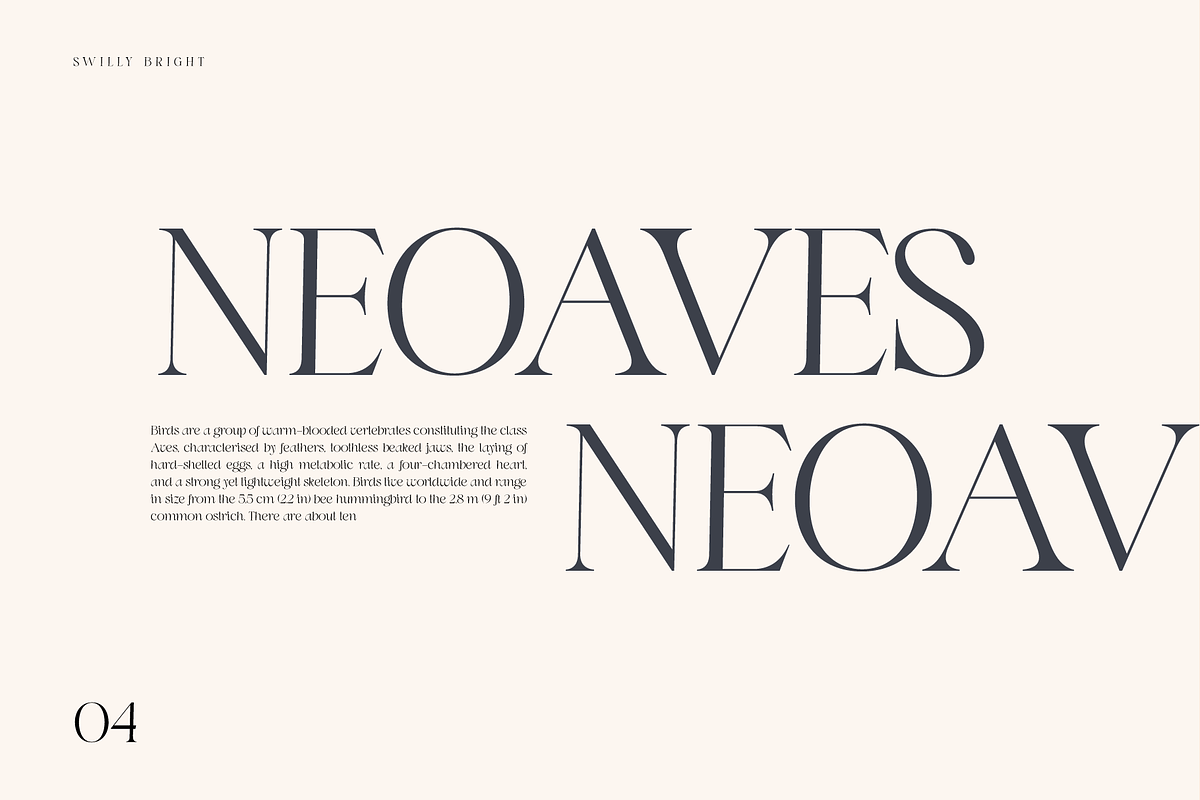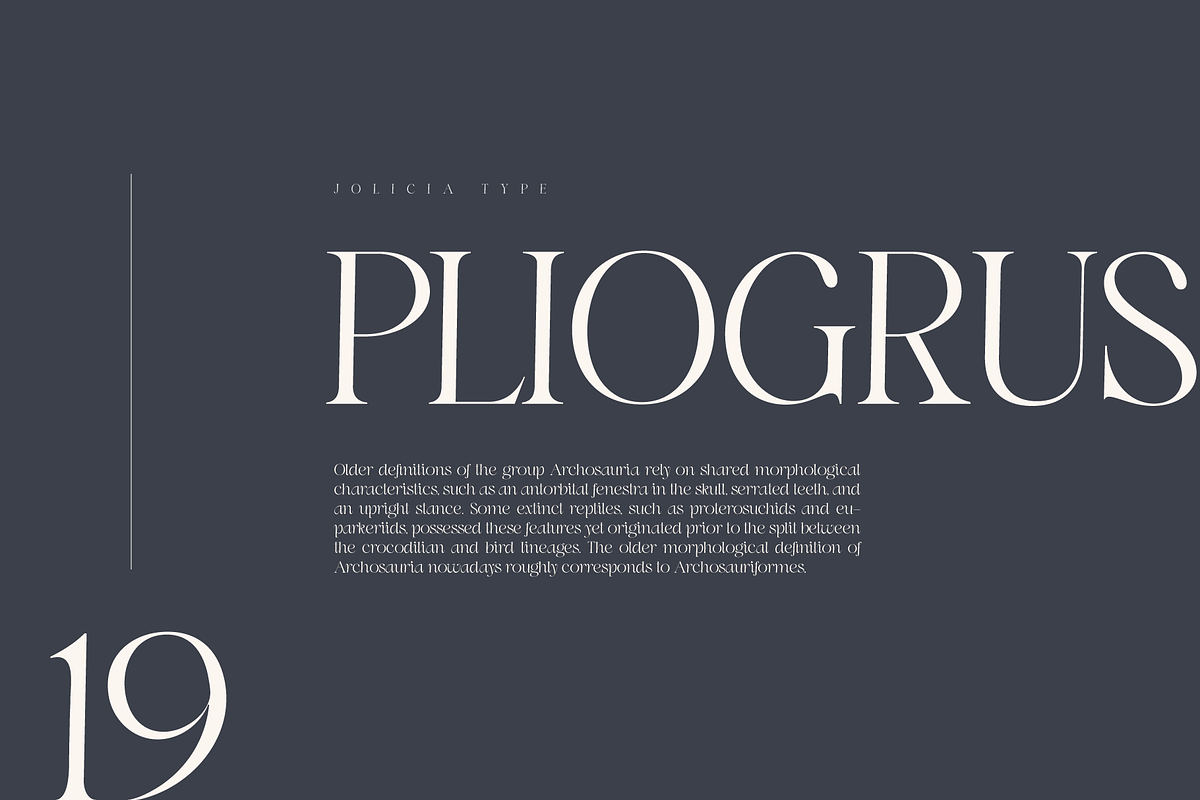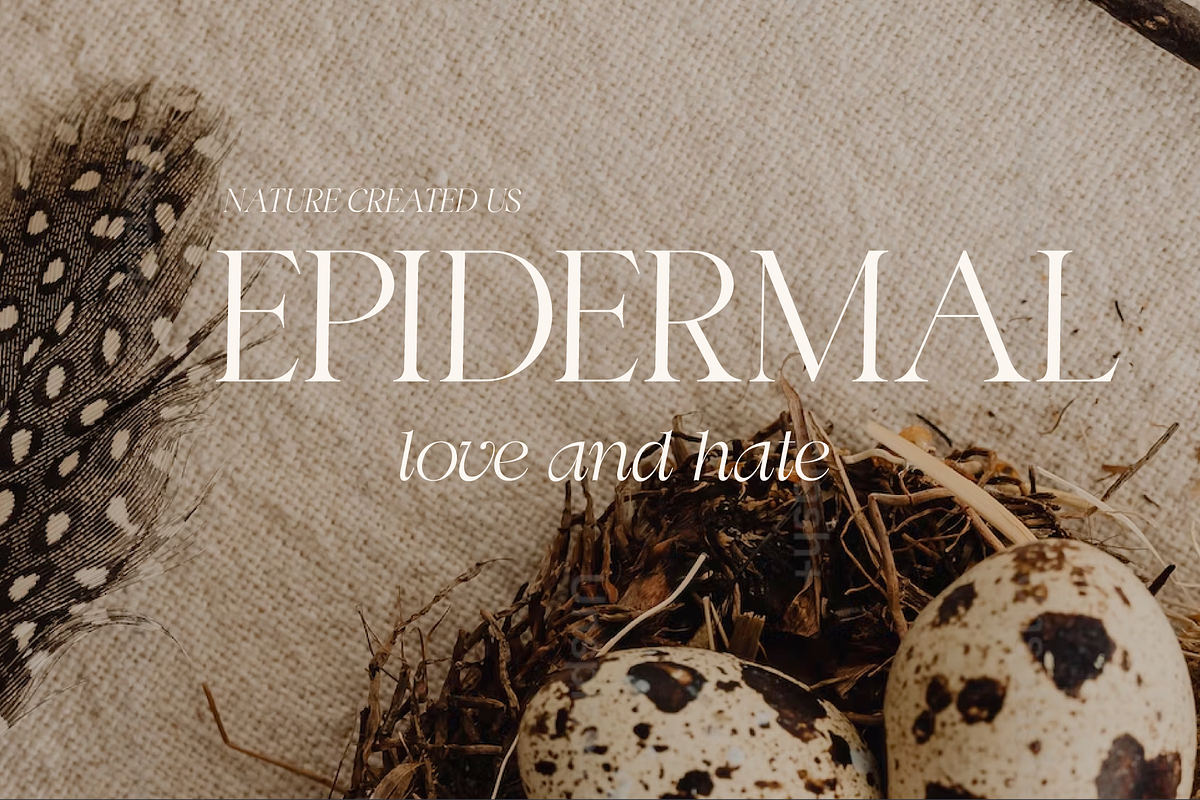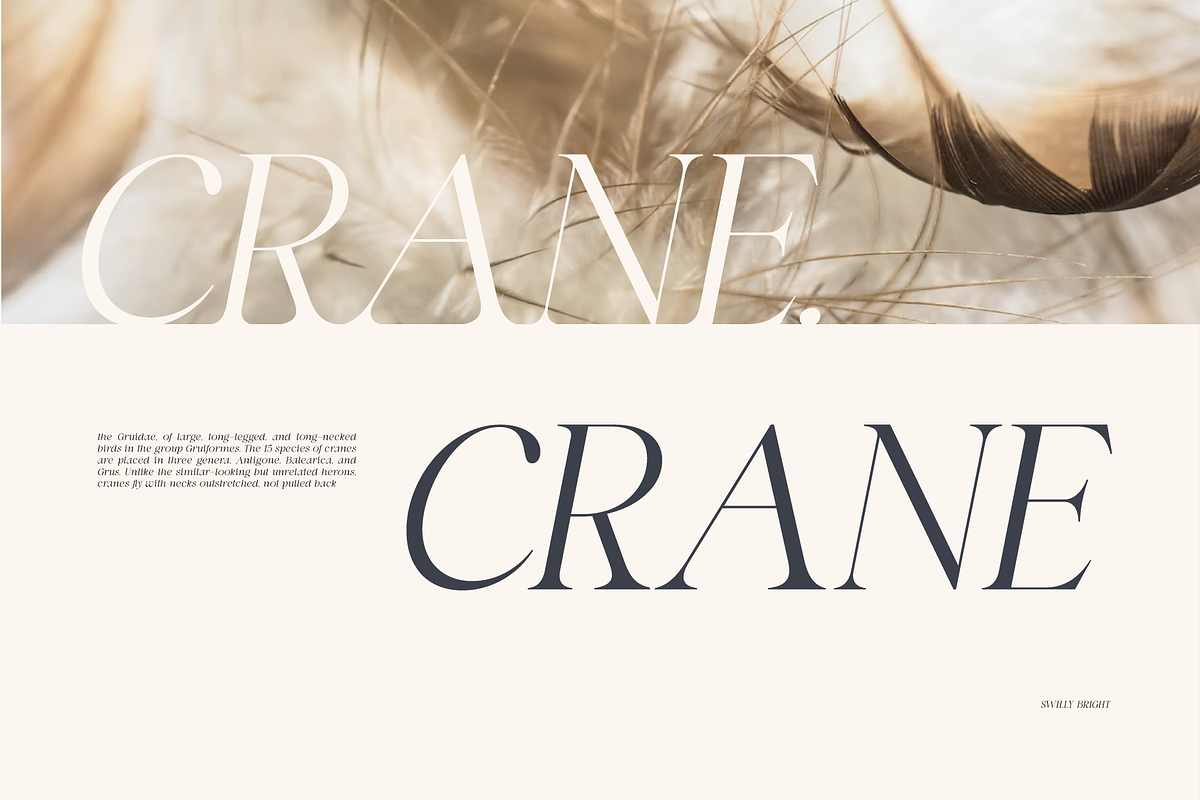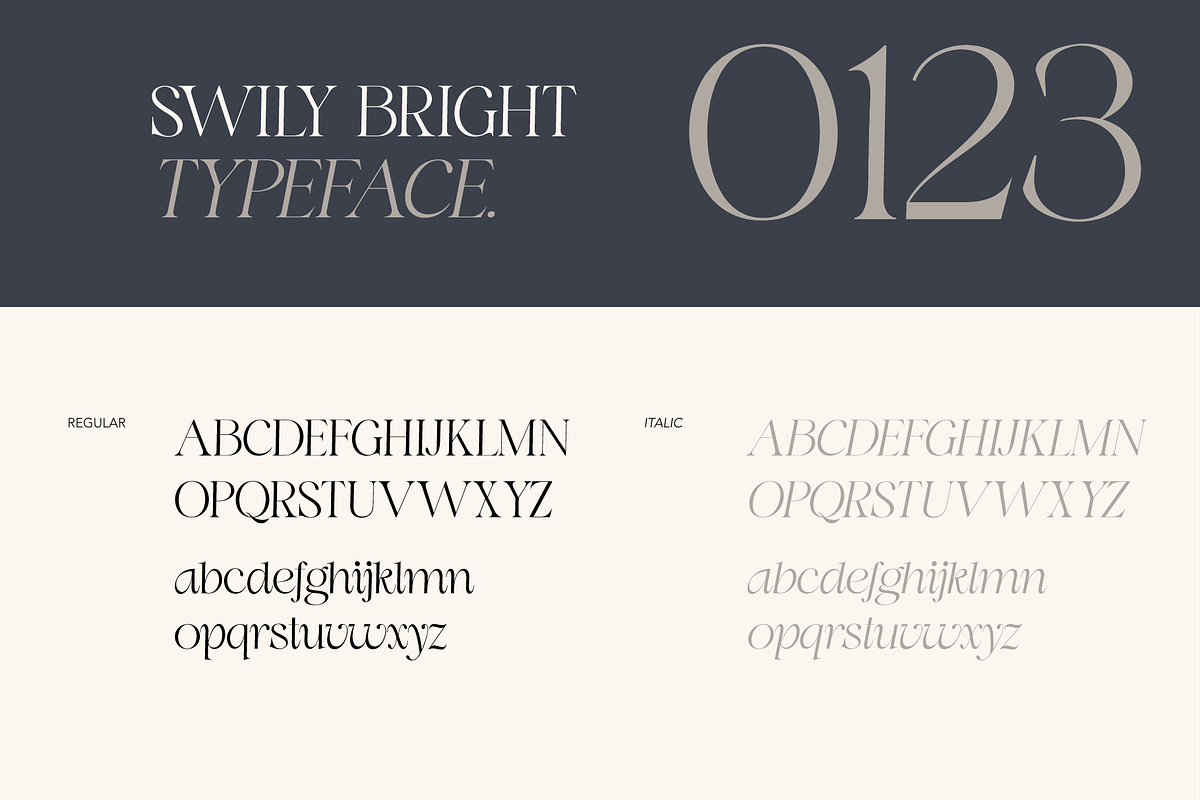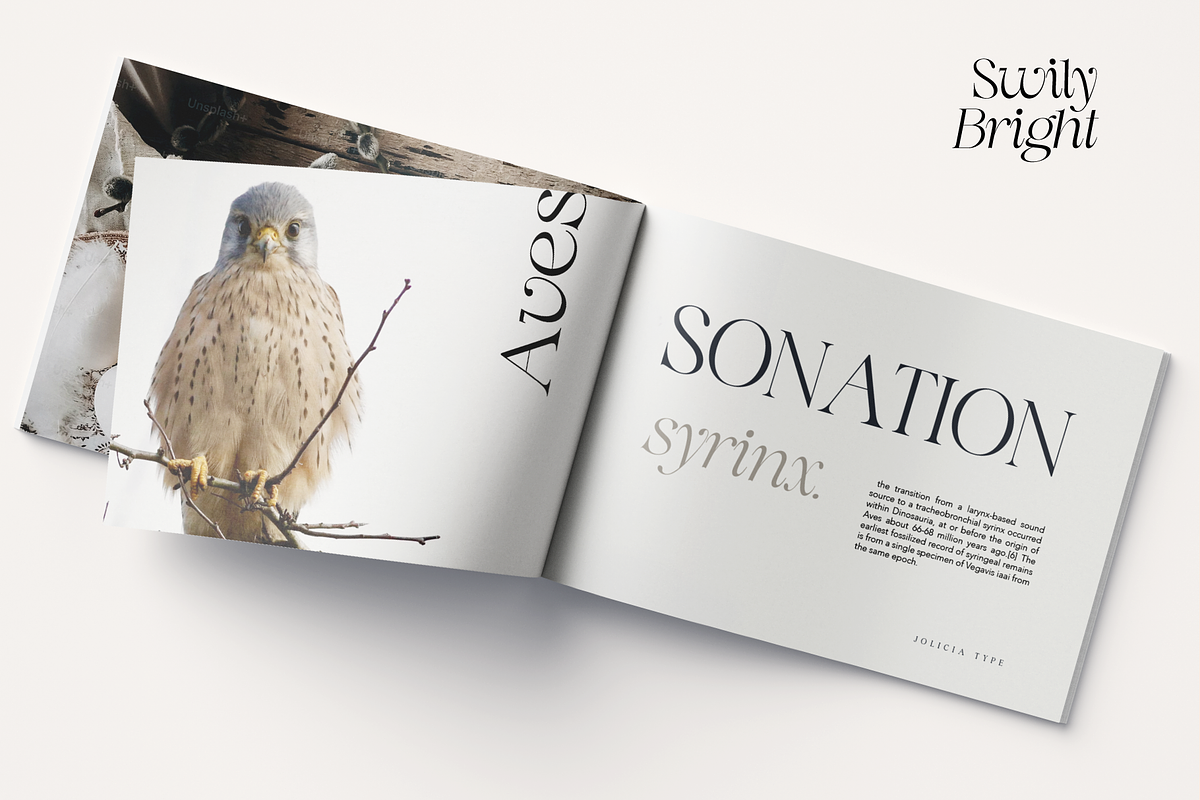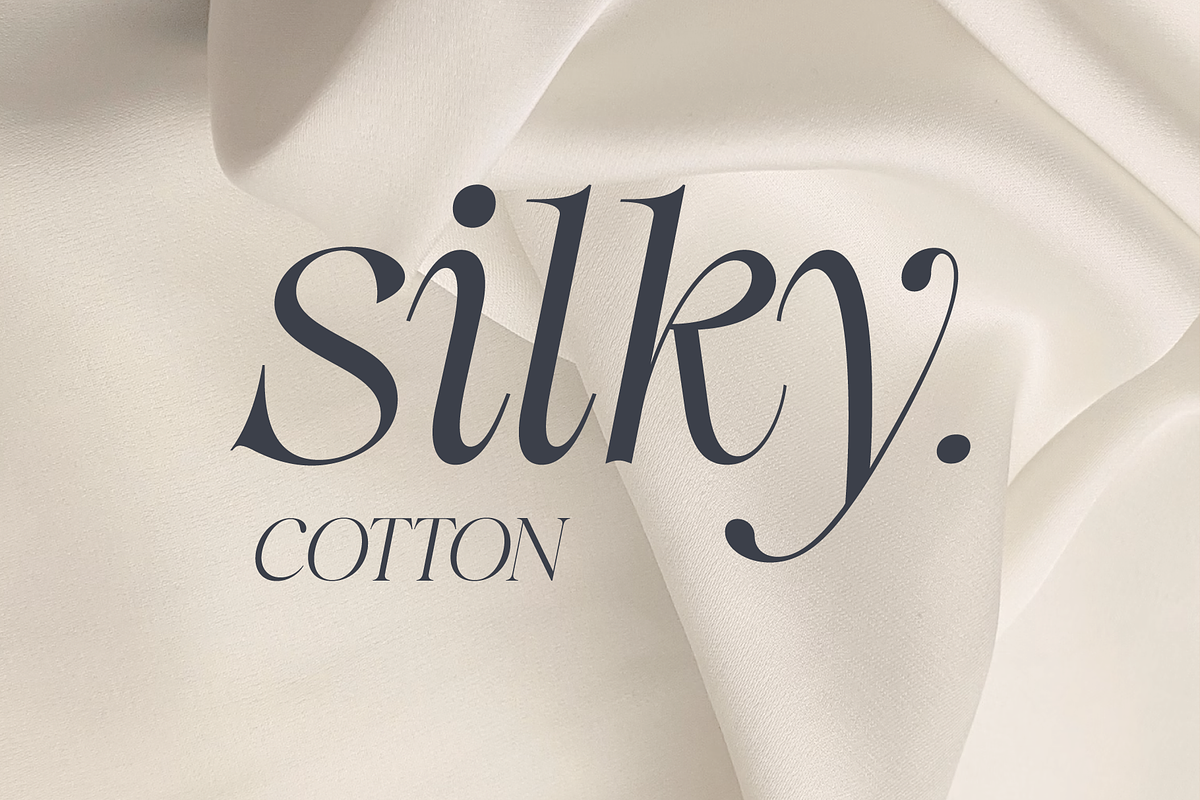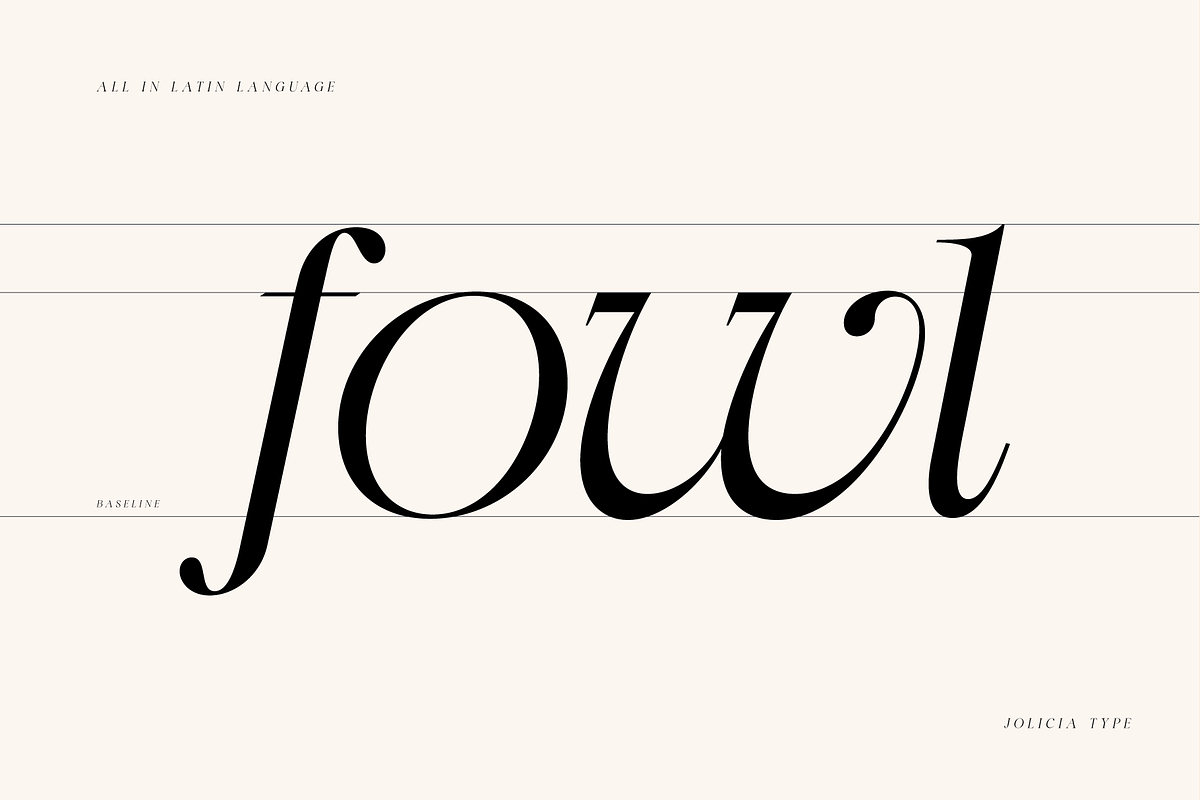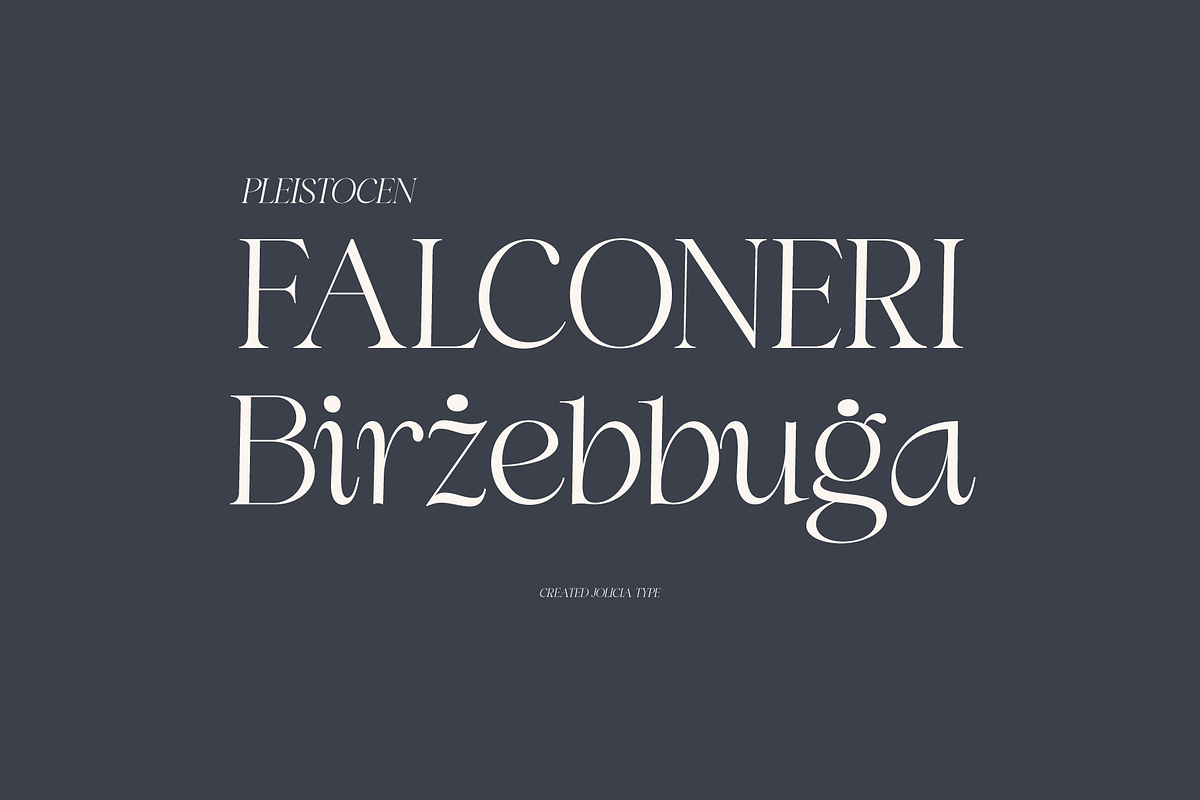
Swily Bright | Classy Font
Say Hello to Swily Bright. Trendy, classy & modern style serif font for your fancy projects. Elegant, fashion and classic style on Swily Bright font will be great for any branding project. With 2 style Regular and Italic, alternates and ligatures will help you to create unique letters